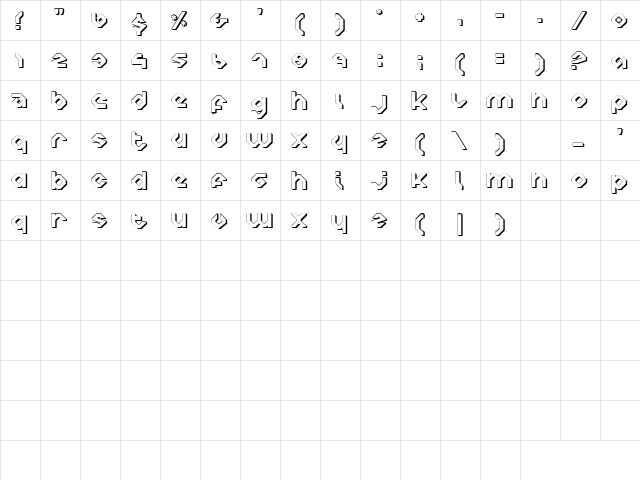
Charlie's Angles Shade Shade
Design Context for Charlie's Angles Shade Typeface
Charlie's Angles Shade is a composed and adaptable typeface that performs quietly and consistently across a wide range of design contexts.